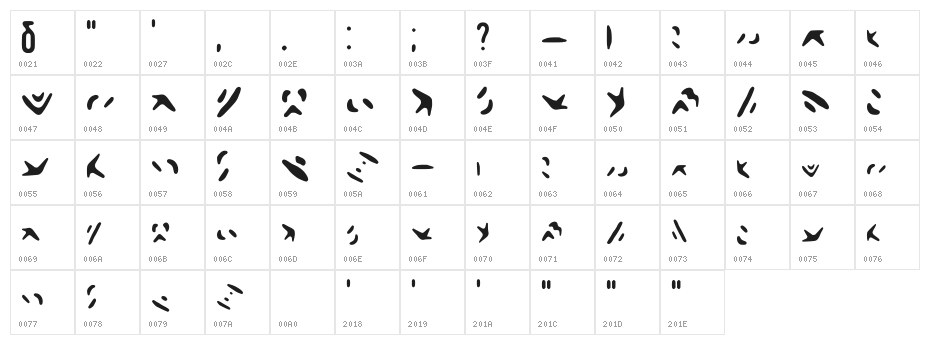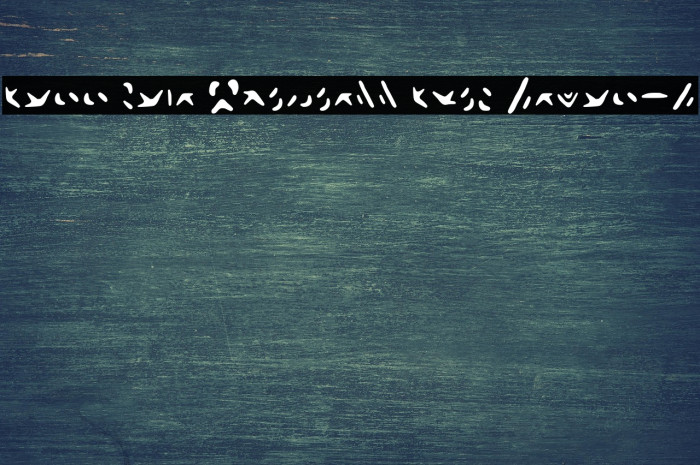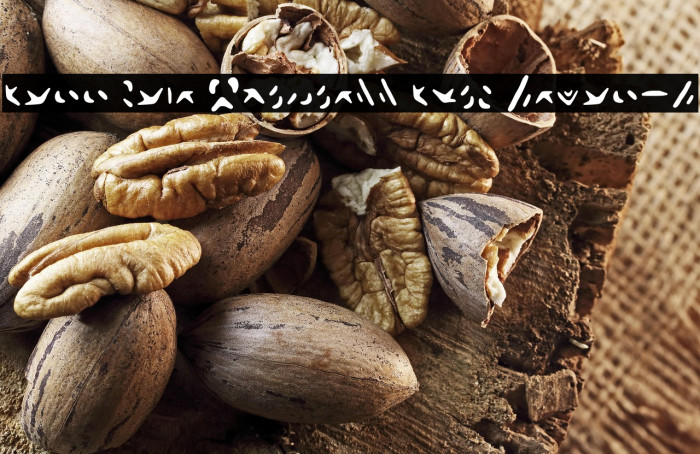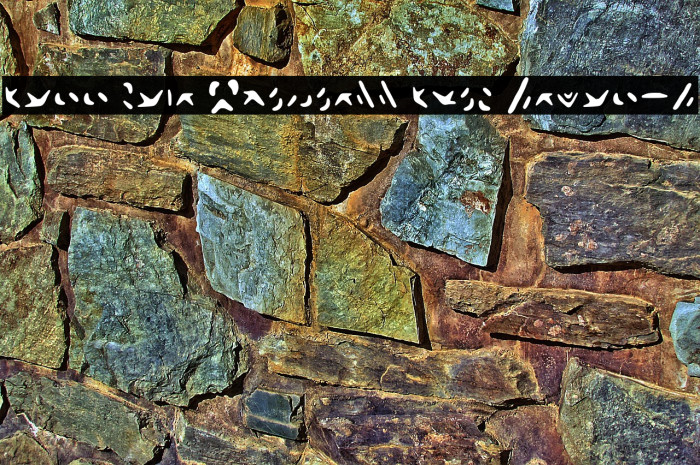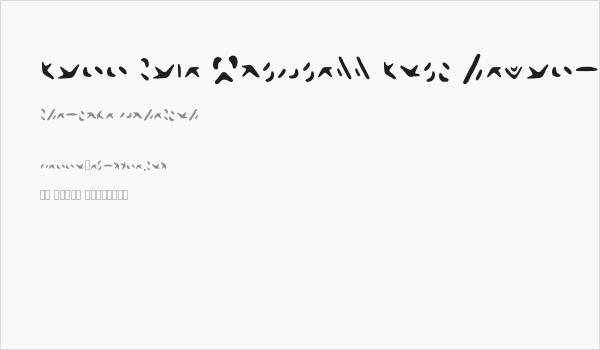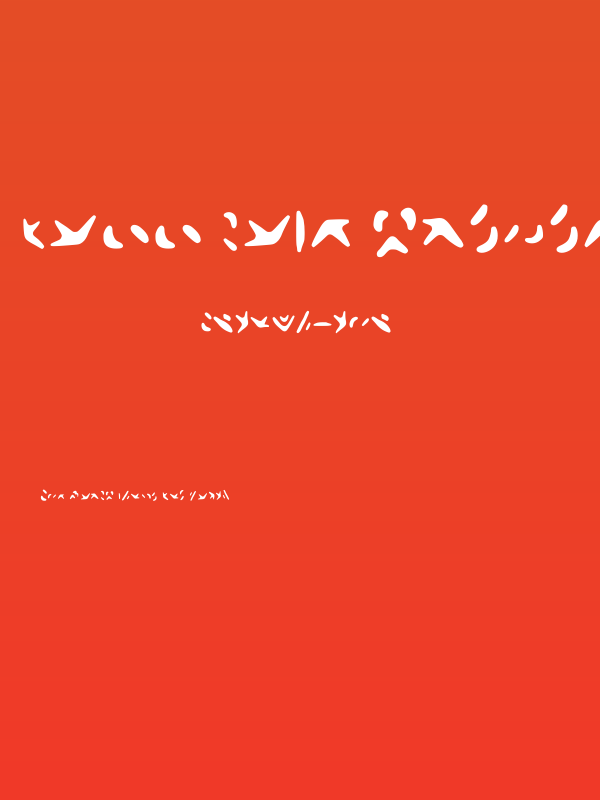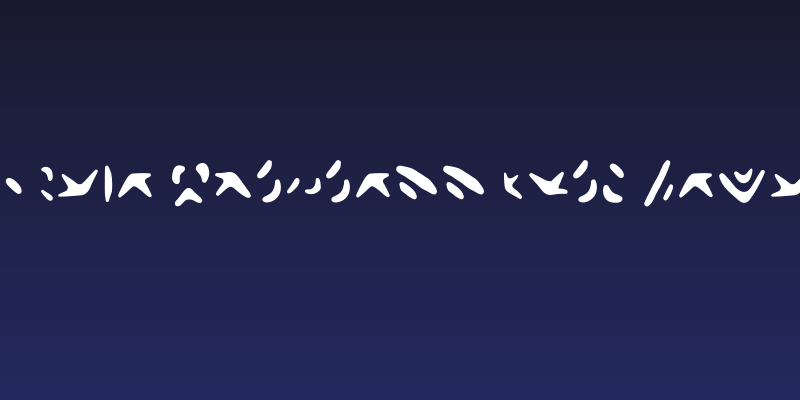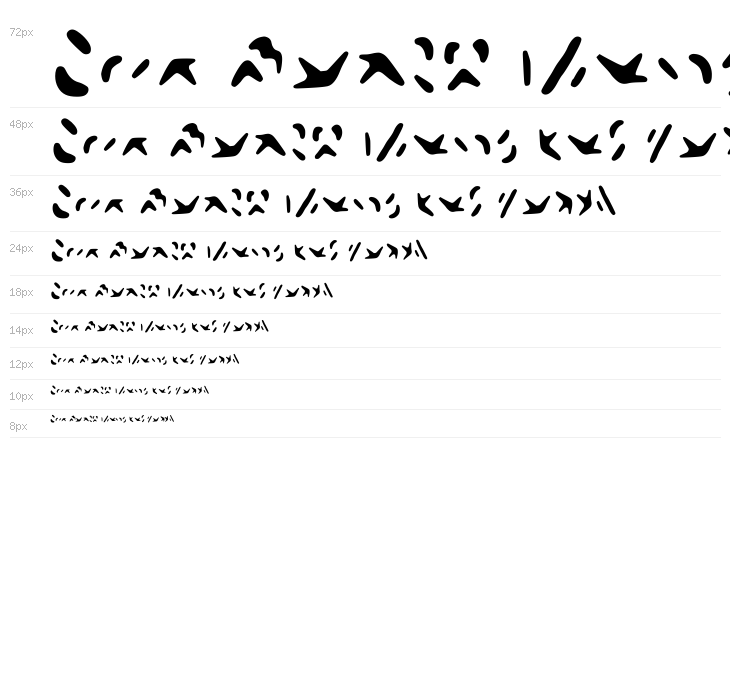
Full Cube Kindness Font Regular Font
This font features a highly stylized and abstract design, resembling a form of artistic script or symbolic representation rather than traditional alphanumeric characters. The characters are composed of bold, sweeping strokes with a playful and dynamic appearance. The design is reminiscent of abstract art or ancient scripts, with each character having a unique and distinct form. The overall aesthetic is modern and avant-garde, making it suitable for creative and unconventional projects. The font does not adhere to typical letterforms, offering a unique visual experience.
Overall StyleModern, Avant-garde
Use CaseLogos, Artistic displays, Creative branding
Proposed ProjectsIdeal for artistic projects, abstract designs, modern art installations, or creative branding.